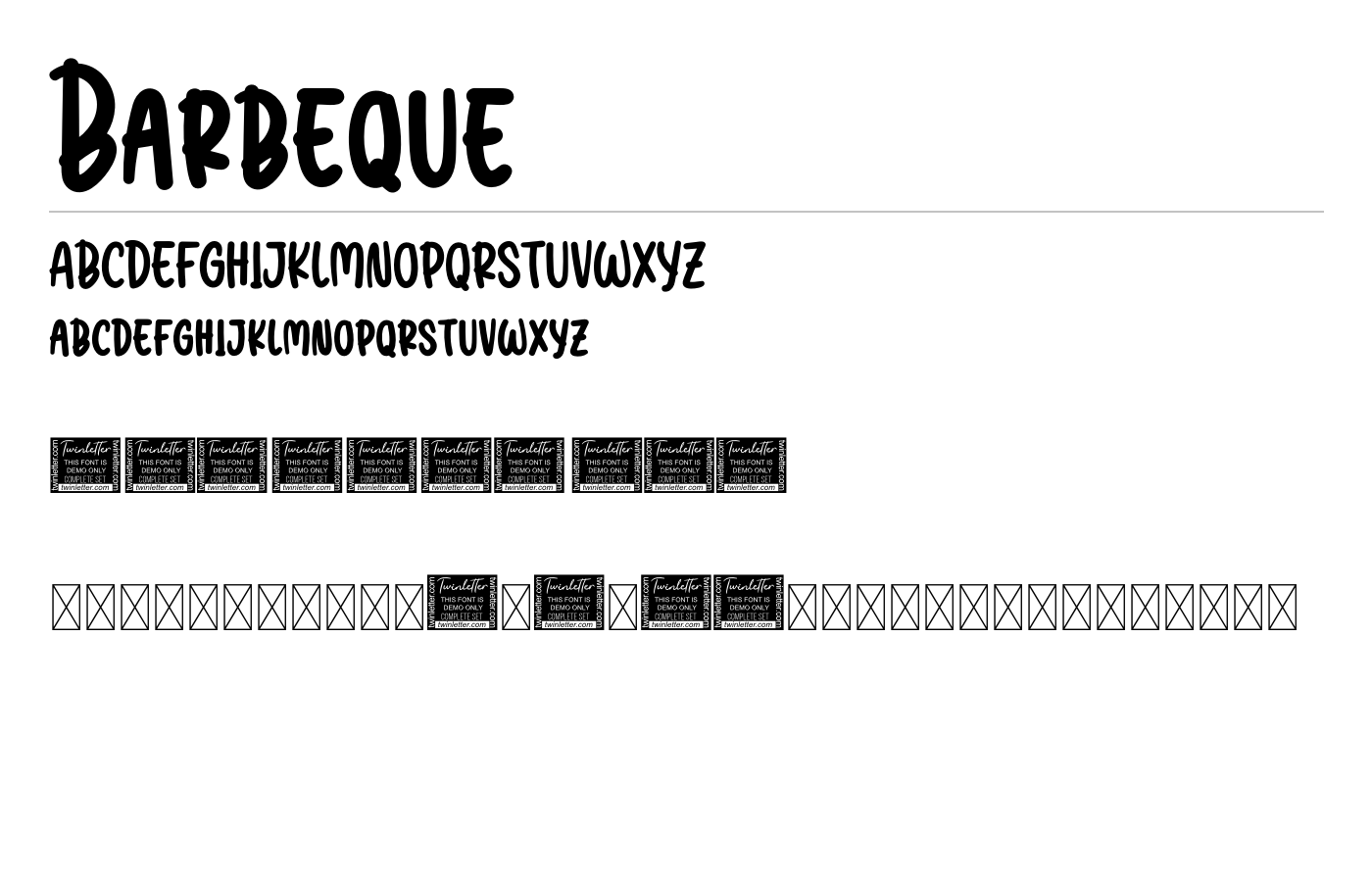
Barbeque Font is a playful and bold handwritten sans serif that brings a warm, casual vibe to any design. Its thick, rounded strokes and irregular letter shapes give it a friendly and approachable character, making it perfect for informal branding, food packaging, and fun headlines. This font works well where you want to add personality and a handcrafted feel without losing readability.
Barbeque Font
About Barbeque Font